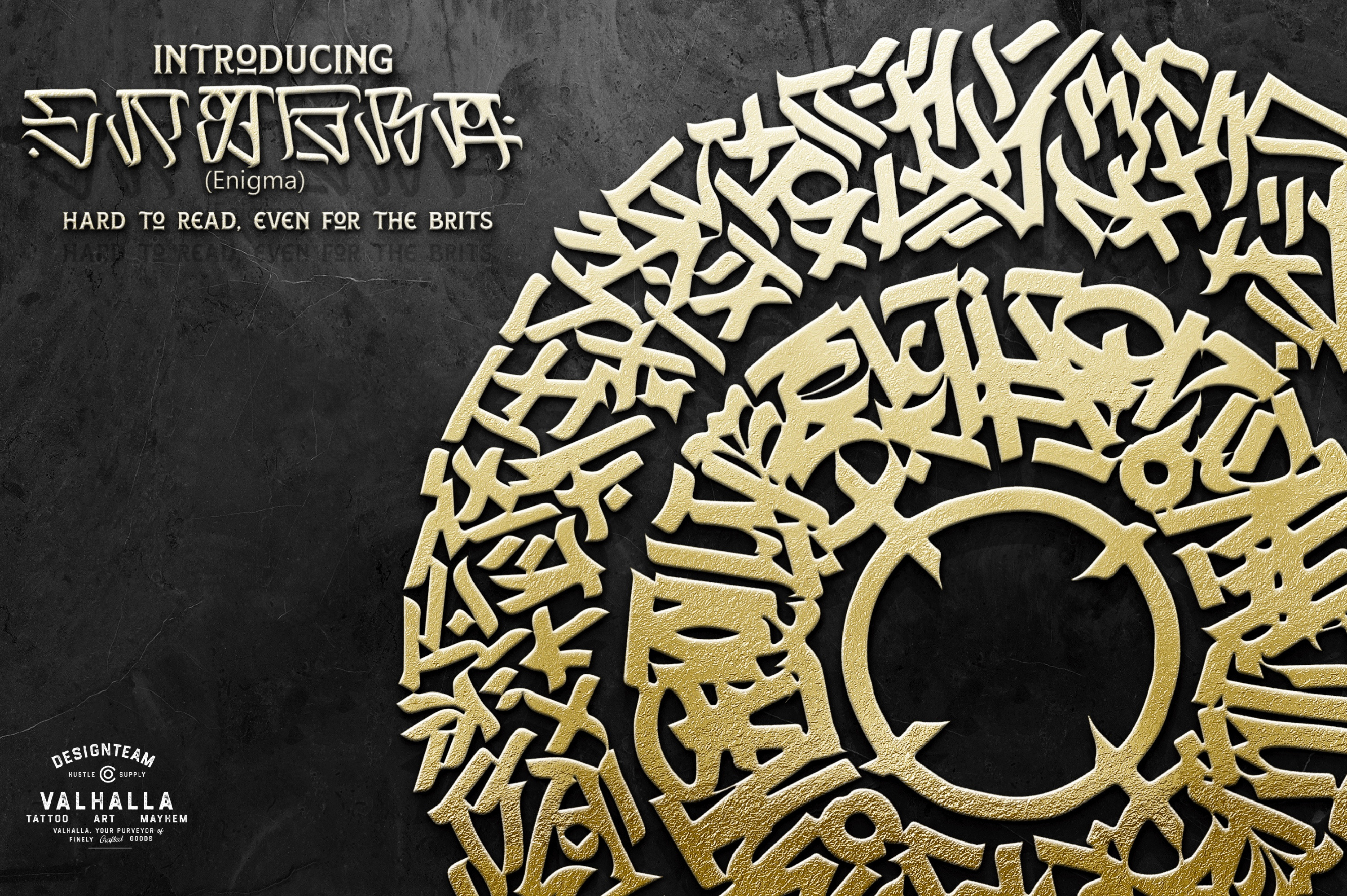
Enigma duo font / calligram letters
Noir project from design team Valhalla, 2 fonts ~ use in illustrator to build calligram with the text on path tool or design fun stuff! Enjoy 🙏❤️😸 //Mårten Sweden